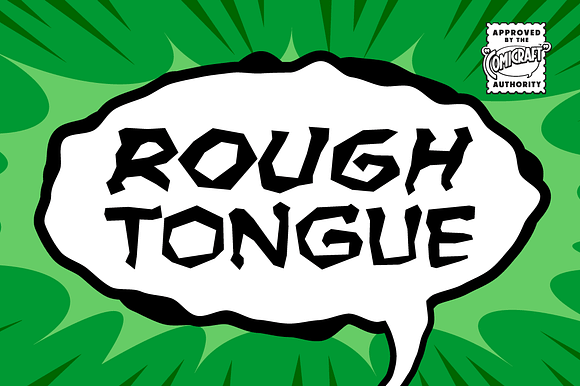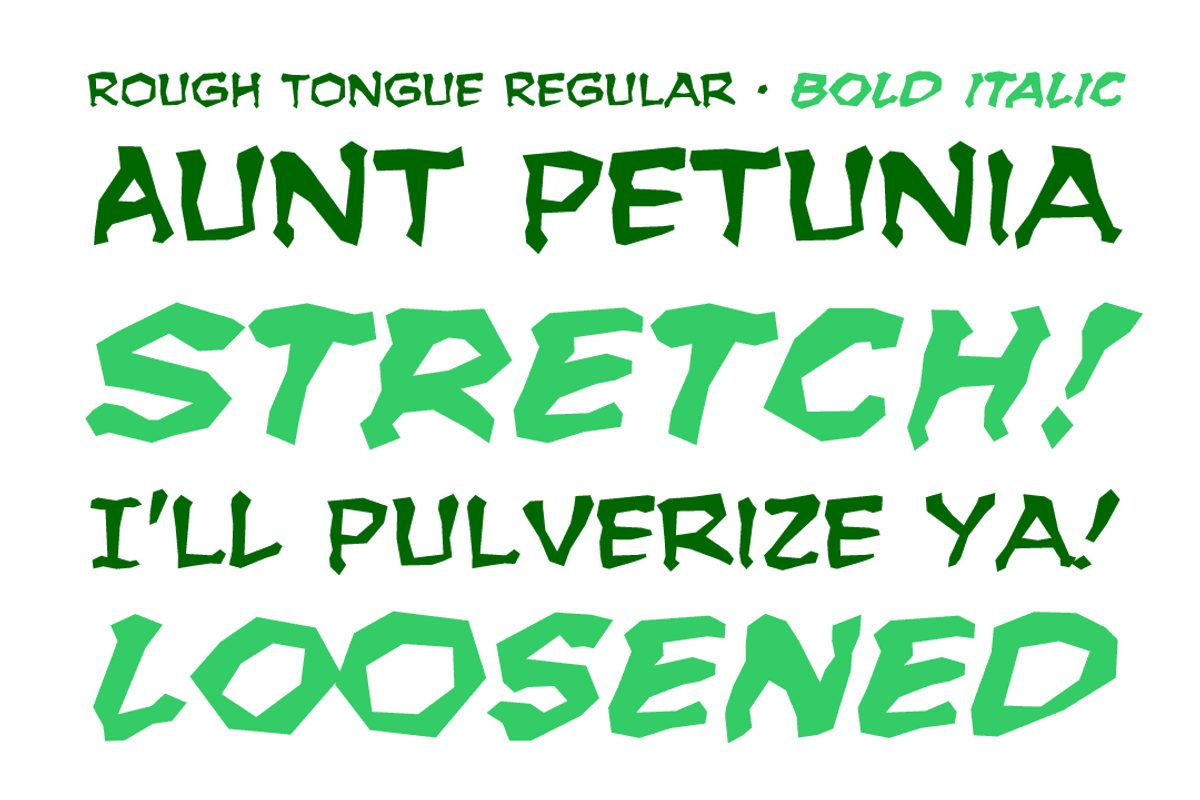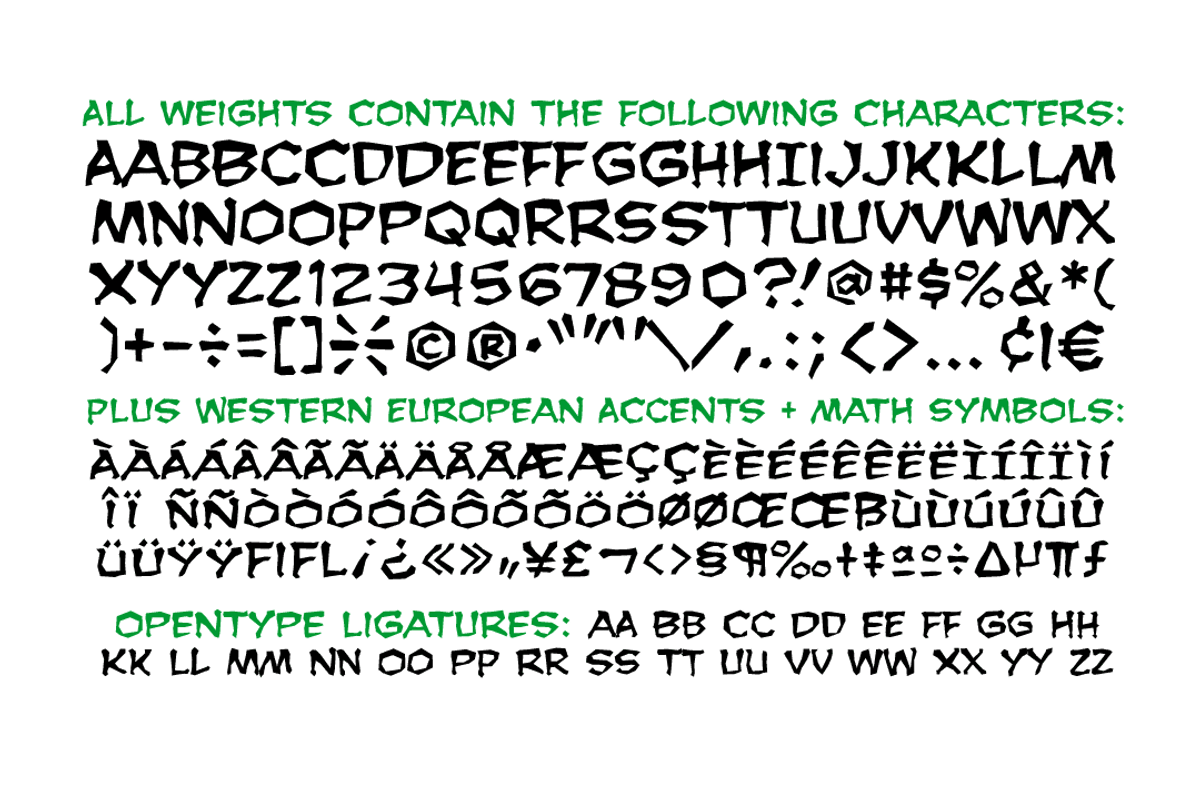
Rough Tongue
Here's The Thing -- it can be loosened, twisted, tied, tripped over, wagged, bitten, forked, stuck out or kept in your cheek. You need your tongue to talk, taste, chew, swallow and sing. You can keep a civil tongue in your head or you can give someone the rough side of your tongue...
Rough Tongue by Comicraft Fonts fits naturally into Branding, posters, packaging, typography.